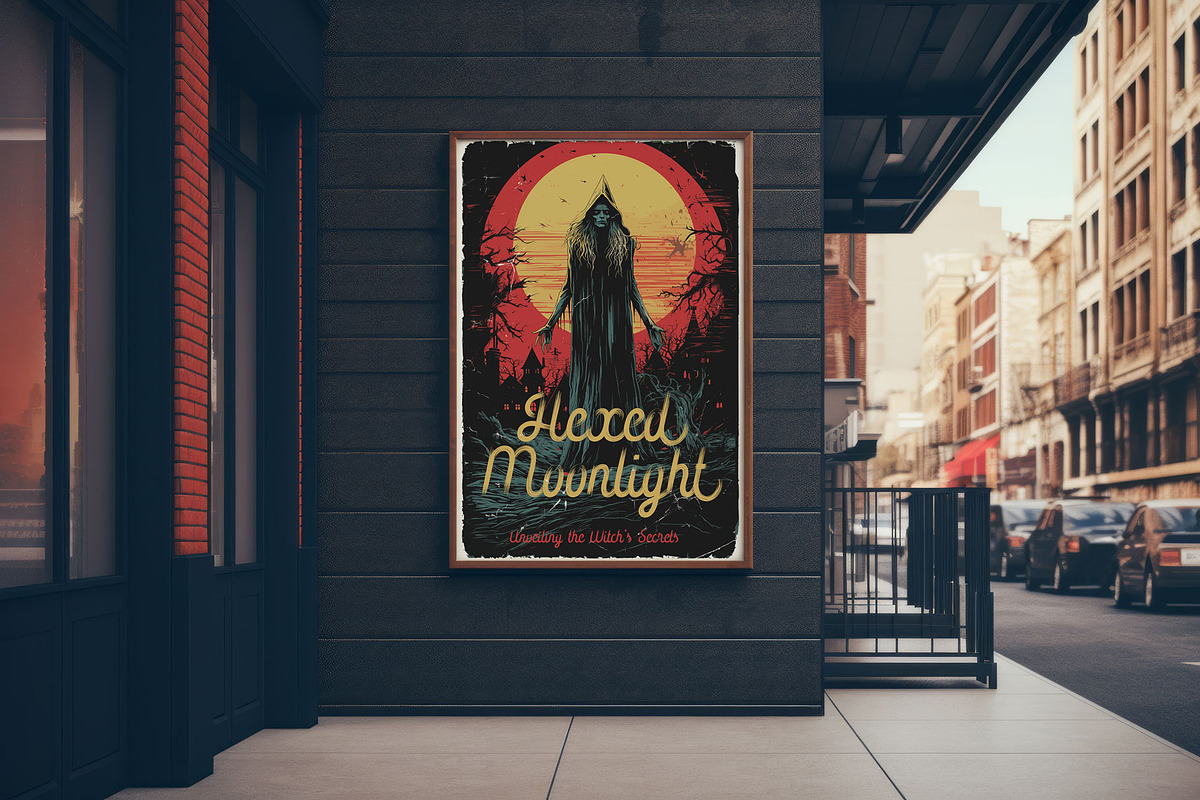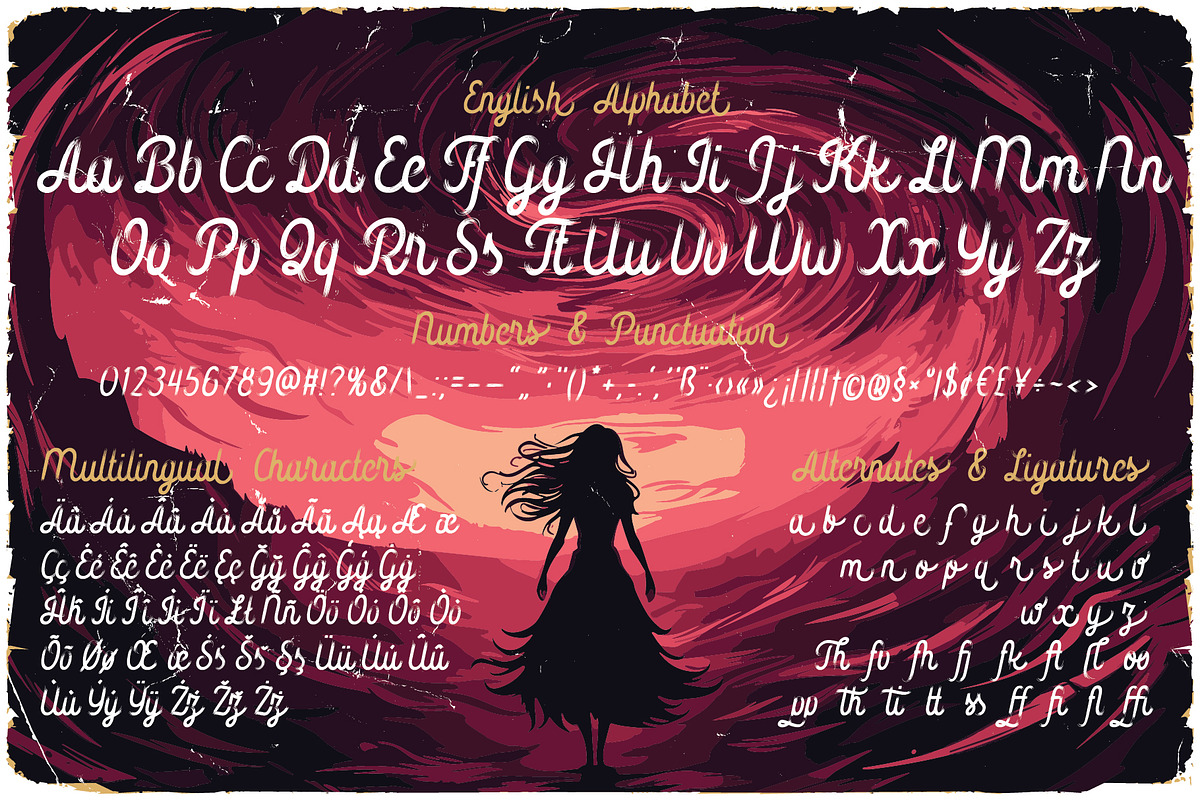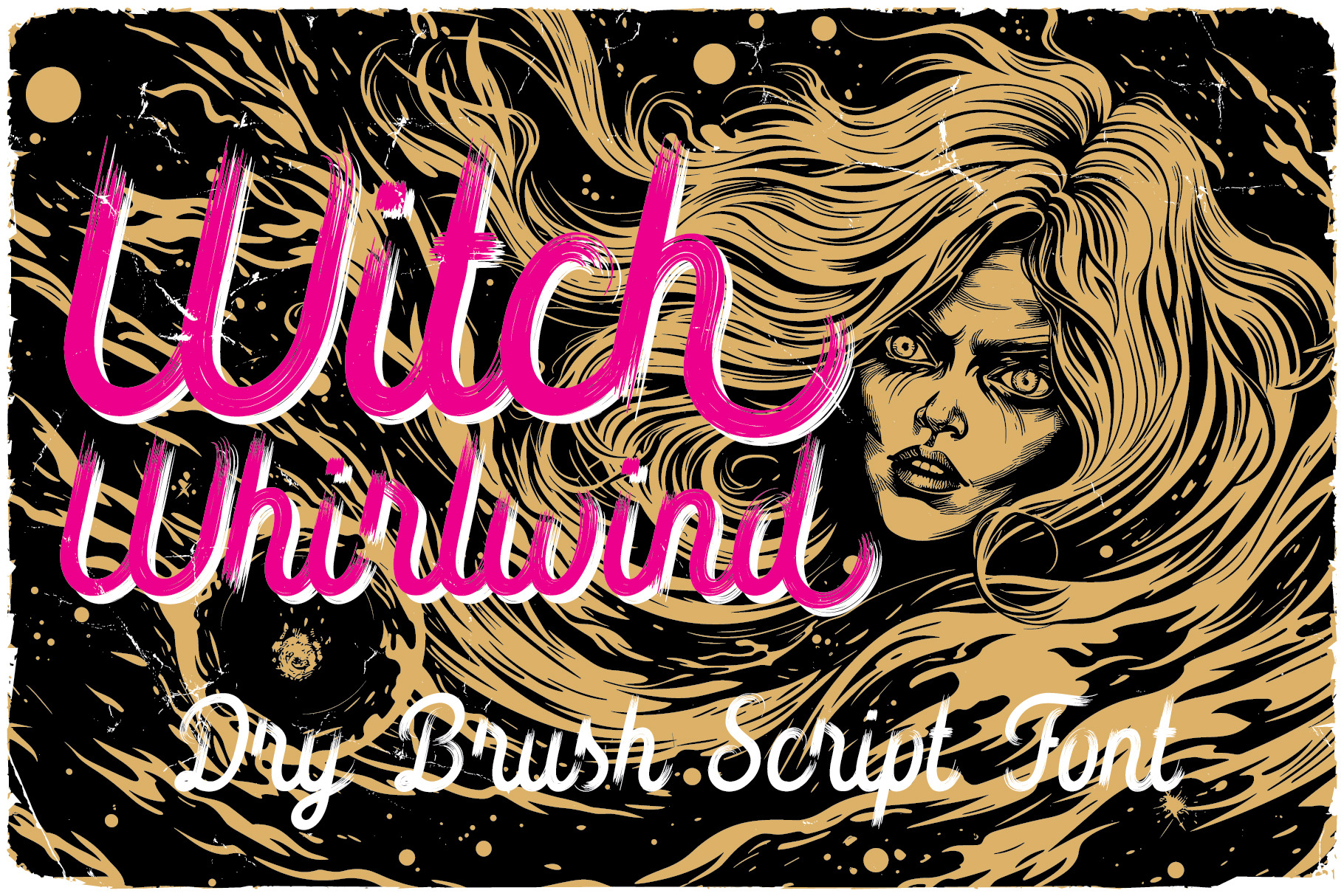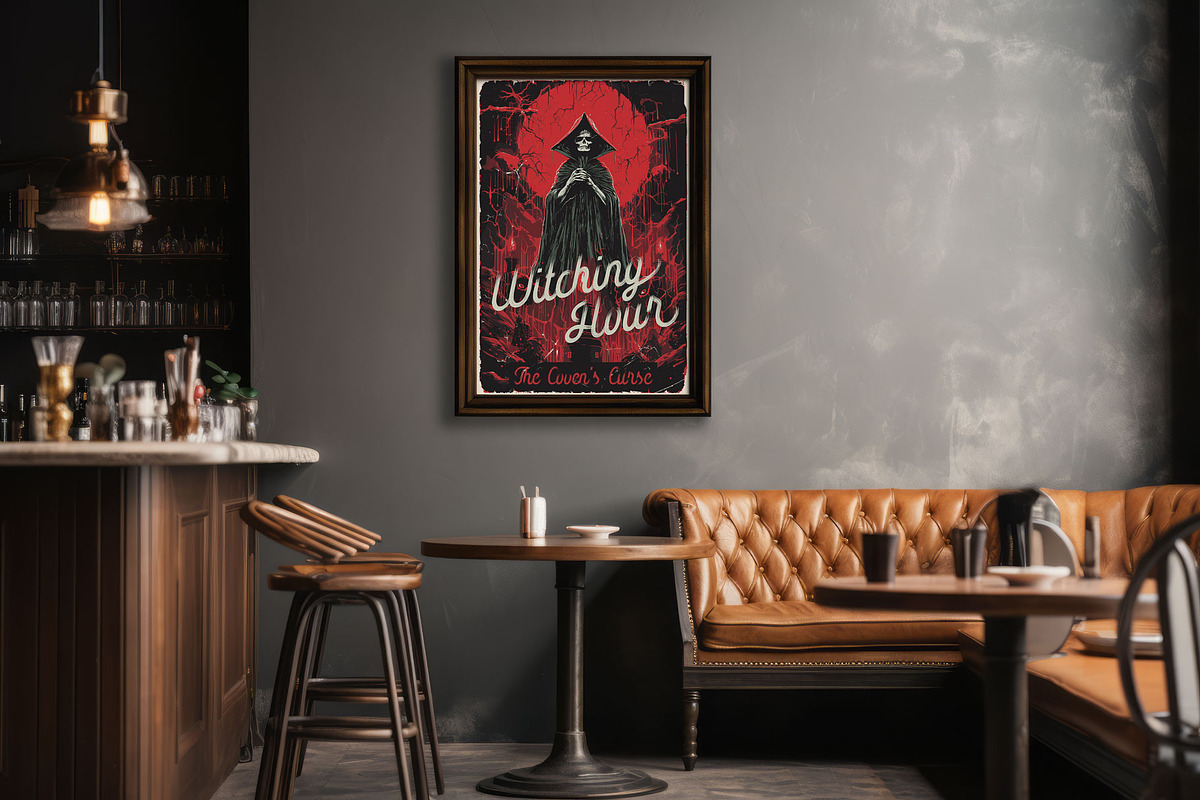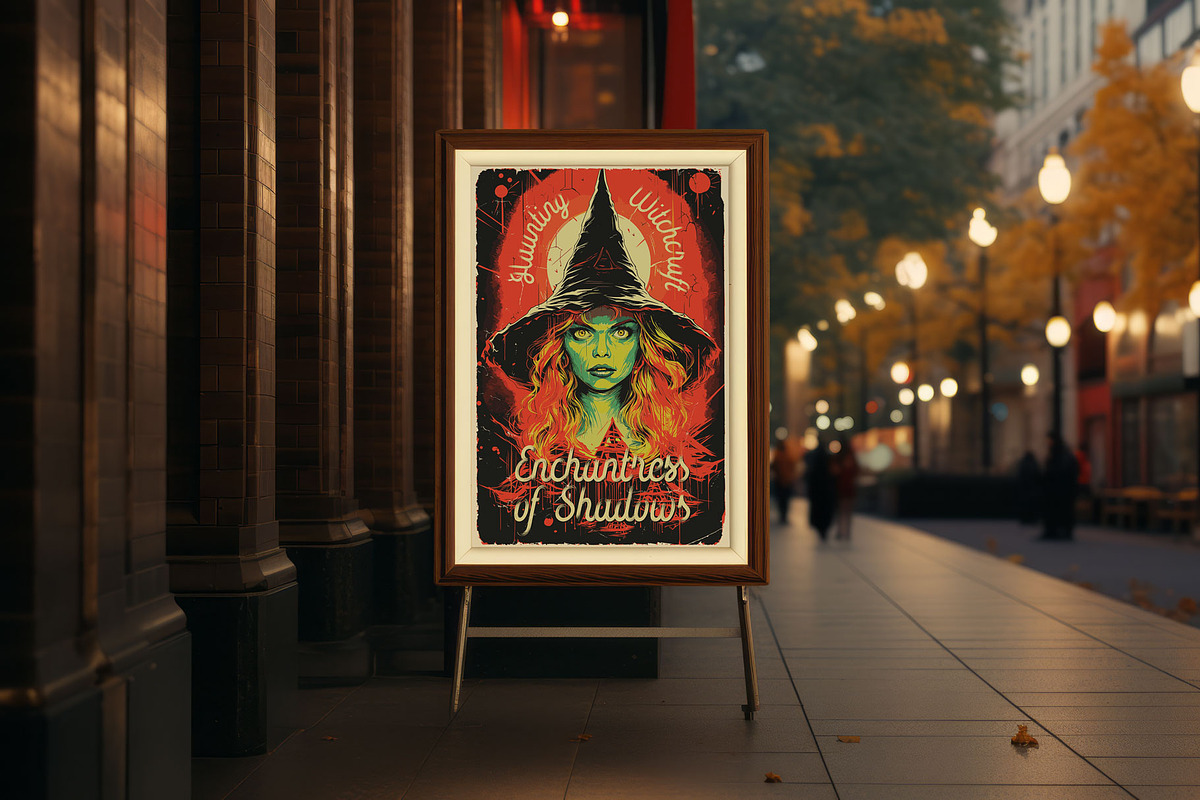
Witch Whirlwind label font
Description: Step into the hauntingly nostalgic world of 80s horror films with 'Witch Whirlwind' a meticulously handcrafted font that channels the chilling essence of vintage movie posters. This font will infuse your designs with the eerie charm and crafty appeal you've been seeking.
What Awaits You:
Unique Font: 'Witch Whirlwind' boasts meticulously designed letters, numbers, and additional characters inspired by the spine-tingling aesthetics of the 80s.
Multilingual Mastery: Your audience knows no bounds with our font, offering complete multilingual support.
Why 'Witch Whirlwind' is the Choice for You:
- Recreate the authentic atmosphere of vintage horror films with this unique font.
- Elevate your poster designs, t-shirt graphics, and logos with an unmistakable crafty touch.
- Seamlessly adapt to different projects with multilingual support and versatile font formats.